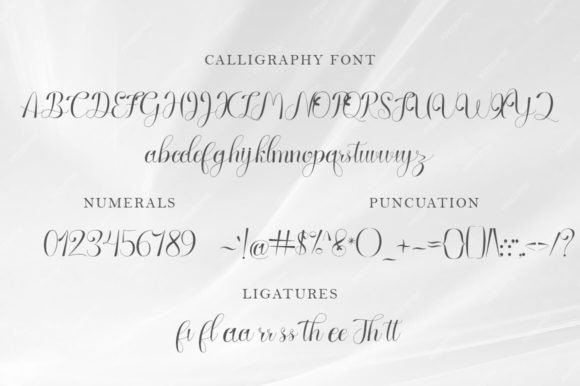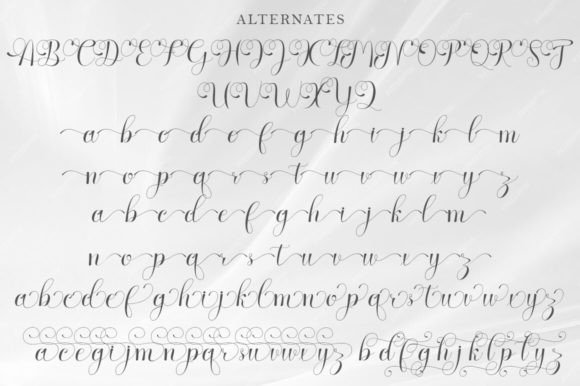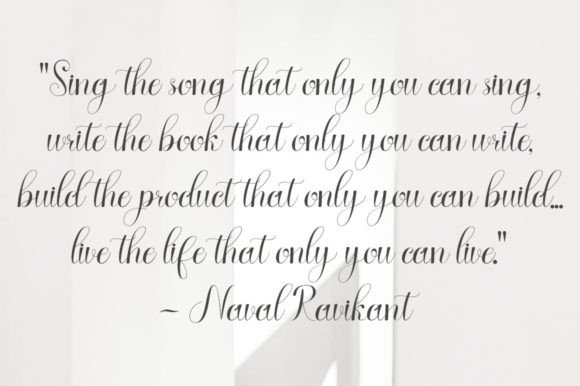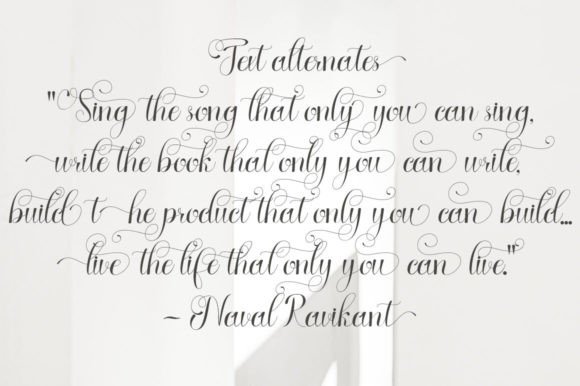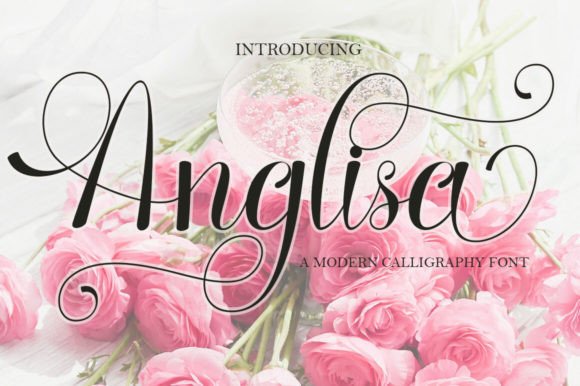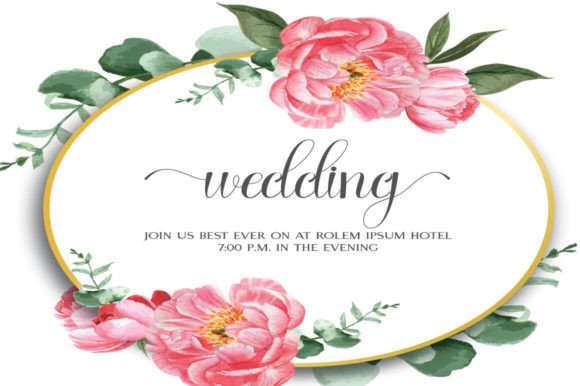
Introducing Anglisa Font: A Romantic and Sweet Calligraphic Delight
Are you a designer or crafter looking for a font that exudes romance and sweetness? Look no further than Anglisa Font, a beautiful calligraphic font that is sure to capture your heart. With its casual yet elegant touch, Anglisa is the perfect choice for a variety of design projects, from wedding invitations and stationery to branding and packaging.
What Makes Anglisa Font So Special?
Anglisa Font is a handwritten style calligraphy font that features varied basic lines, smooth lines, and a classic and elegant touch. Its unique blend of casual and sophisticated elements makes it stand out from other fonts on the market. Whether you’re looking to create a romantic and whimsical design or a more formal and elegant one, Anglisa is the perfect choice.
One of the best things about Anglisa Font is that it is PUA (Private Use Area) coded, which means that you can access all the glyphs and sweeps easily. This makes it simple to use and customize the font to suit your design needs. With PUA coding, you can easily access alternate characters, ligatures, and other special features that will take your designs to the next level.
Anglisa Font is a versatile font that is perfect for designers and crafters alike. Whether you’re creating digital designs or handmade crafts, Anglisa is the perfect choice. Its elegant and sophisticated look makes it ideal for a variety of projects, including:
- Branding and packaging
- Signs and banners
- Digital art and illustrations
- Handmade crafts and DIY projects
Key Features of Anglisa Font
Here are some of the key features that make Anglisa Font so special:
- Romantic and sweet calligraphic style
- Casual yet elegant touch
- PUA coded for easy access to glyphs and sweeps
- Handwritten style calligraphy font
- Varied basic lines and smooth lines
- Classic and elegant touch
Tips for Using Anglisa Font
Here are some tips for using Anglisa Font in your designs:
- Use Anglisa as a headline font to add a touch of elegance and sophistication to your design
- Pair Anglisa with a simpler font for body text to create a beautiful contrast
- Use Anglisa to create beautiful and unique wedding invitations and stationery
Anglisa Font is a beautiful and versatile calligraphic font that is perfect for designers and crafters alike. With its romantic and sweet style, casual yet elegant touch, and PUA coding for easy access, Anglisa is the perfect choice for a variety of design projects. Whether you’re creating digital designs or handmade crafts, Anglisa is sure to inspire and delight. So why wait? Download Anglisa Font today and start creating beautiful and unique designs that will capture your audience’s heart.